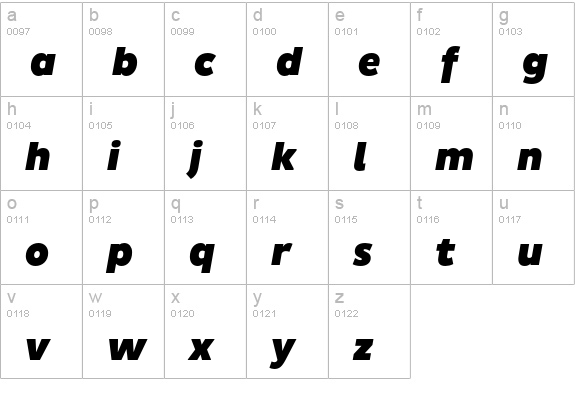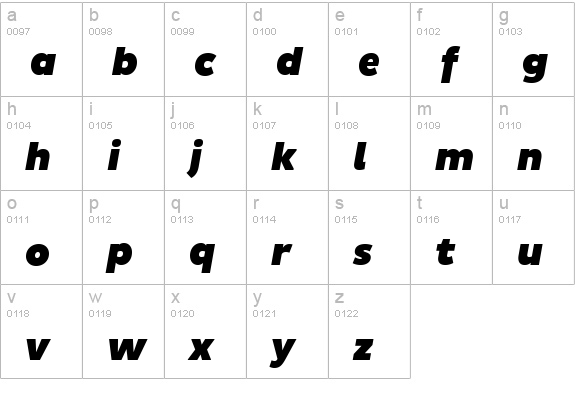
Pluto Sans Black Italic is a maximum-weight, dramatic, italic variant in the Pluto typeface family \xE2\x80\x94 well suited to maximum-impact headlines, posters, and packaging.
Pluto Sans Black Italic font is a bold and stylish typeface that exudes modern sophistication. Its sleek and elegant design makes it perfect for striking headlines, branding materials, and editorial projects. The italic style adds a touch of flair and dynamism to any text, making it stand out with a touch of sophistication. What sets Pluto Sans Black Italic font apart is not just its striking appearance, but also its versatility. Whether you're looking to create a bold statement or add a touch of elegance to your designs, this font has you covered. The best part? Pluto Sans Black Italic font is available for free download at FontsMarket.com. Now you can elevate your designs with this stunning typeface without breaking the bank. Don't miss out on the opportunity to add this stylish and versatile font to your collection. Download Pluto Sans Black Italic font today and take your designs to the next level!